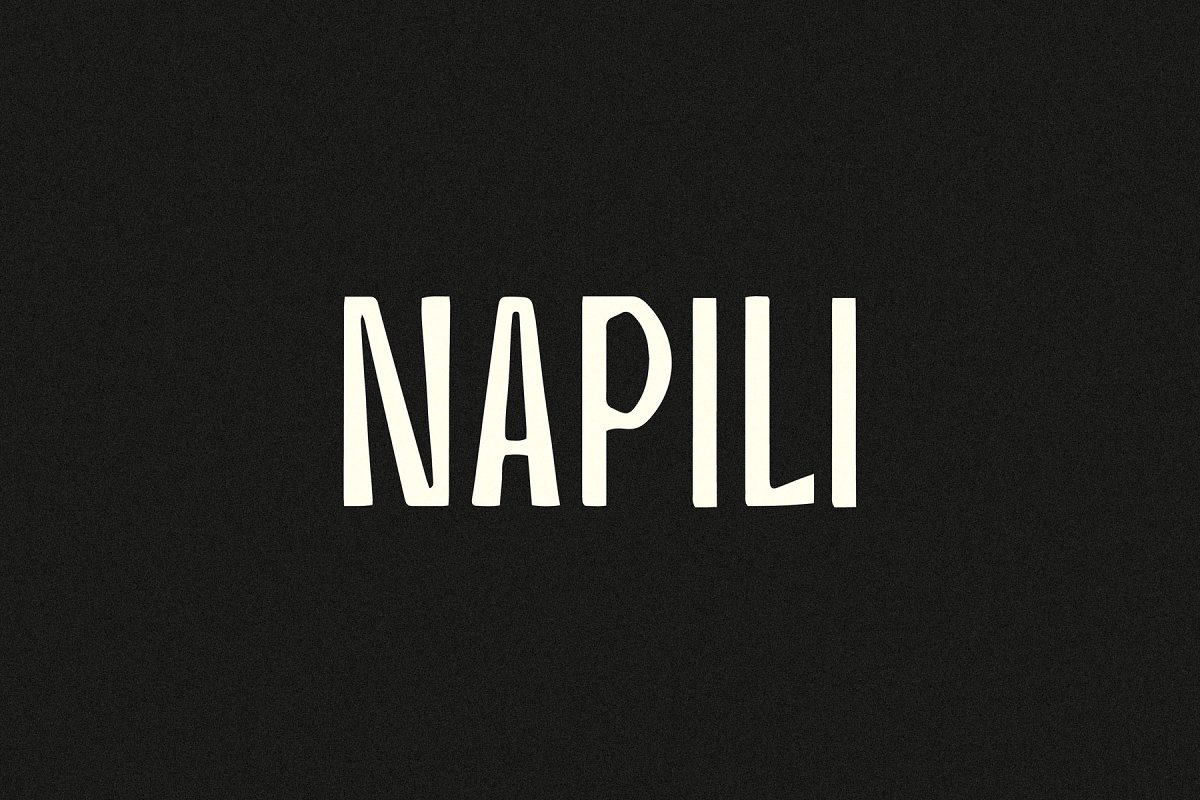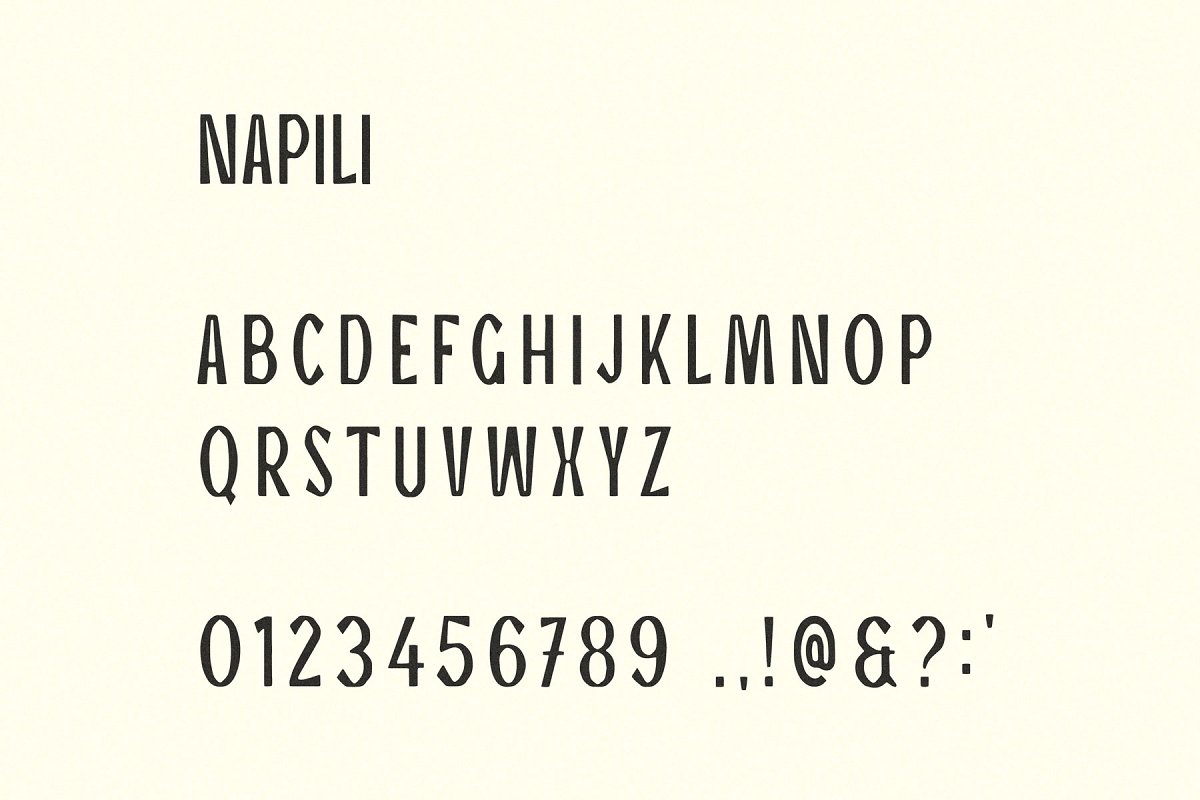
About the Napili A Tropical Display Font
Say hi to Napili, These letters bring a breathe of tropical air into this cold world, Contains all uppercase, numbers and basic punctuation, Find this font and dozens more on my website: Taylorpenton, com/fonts